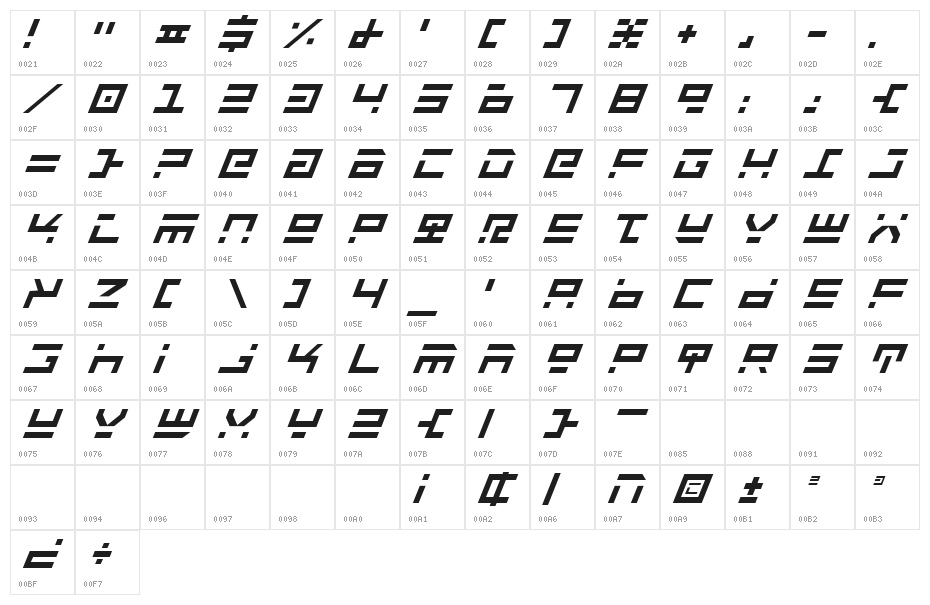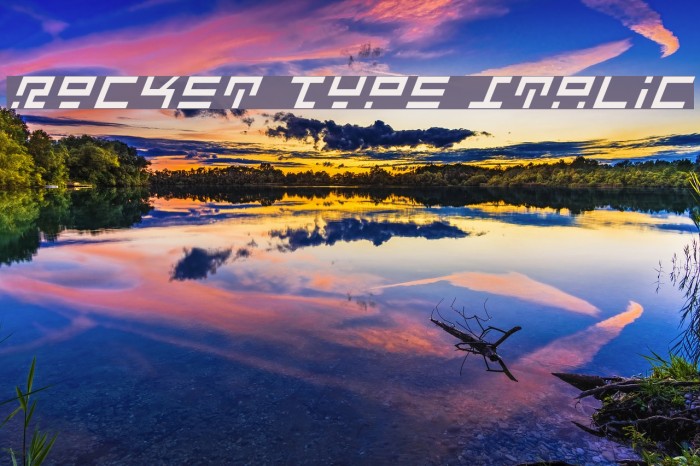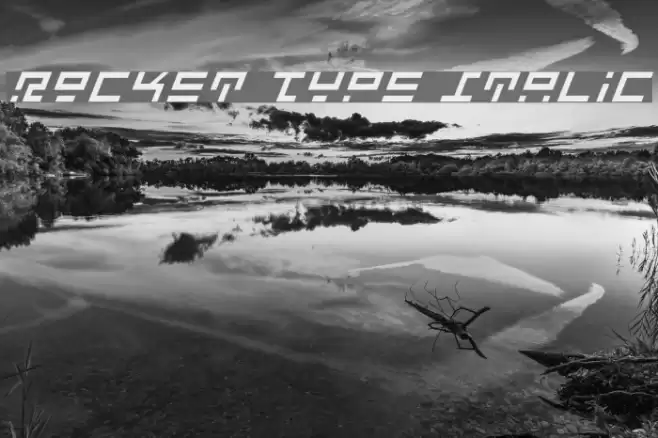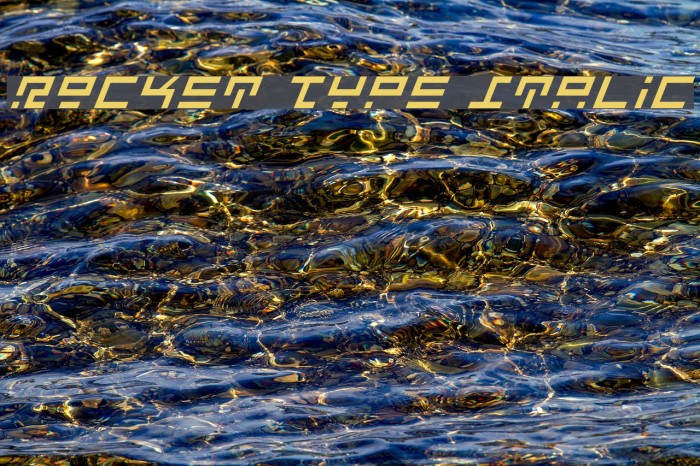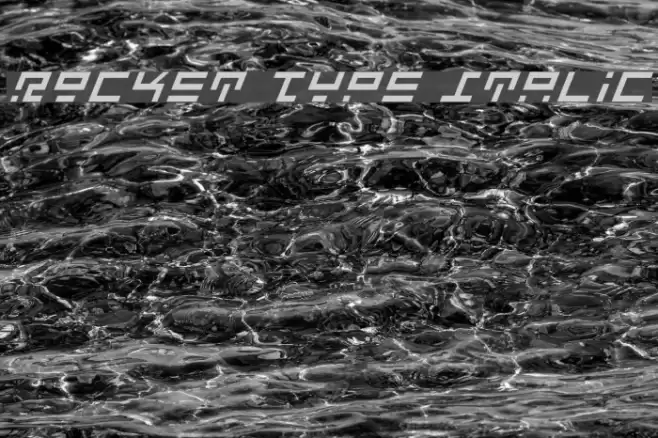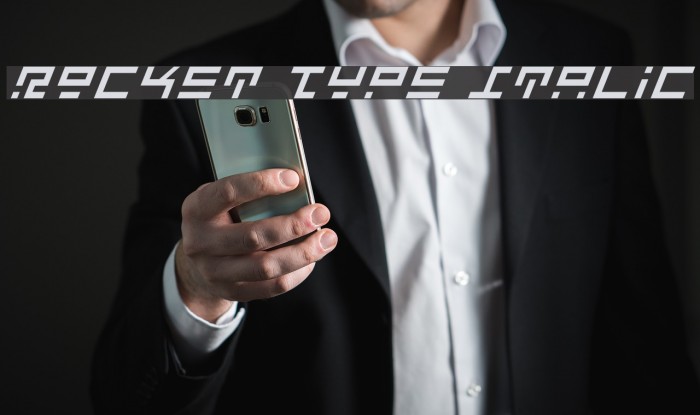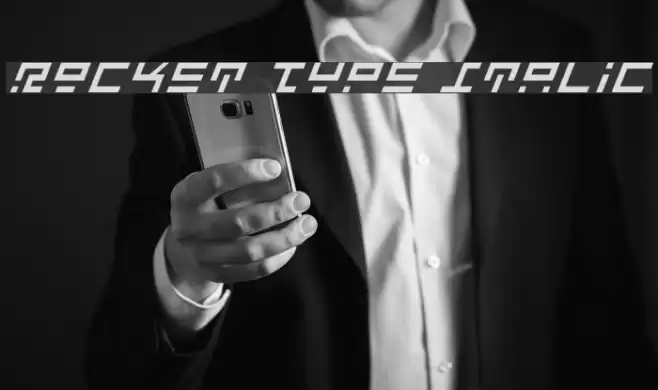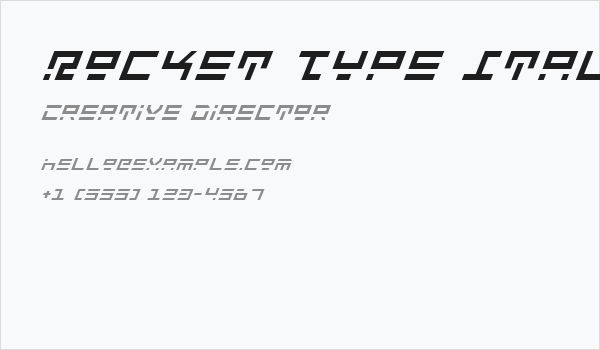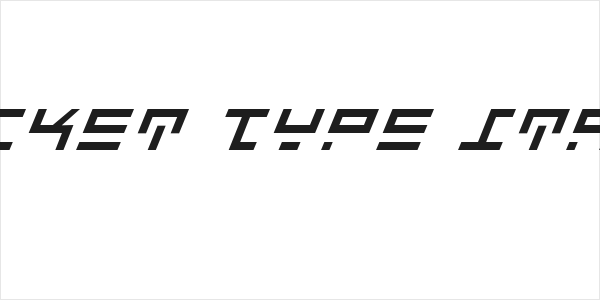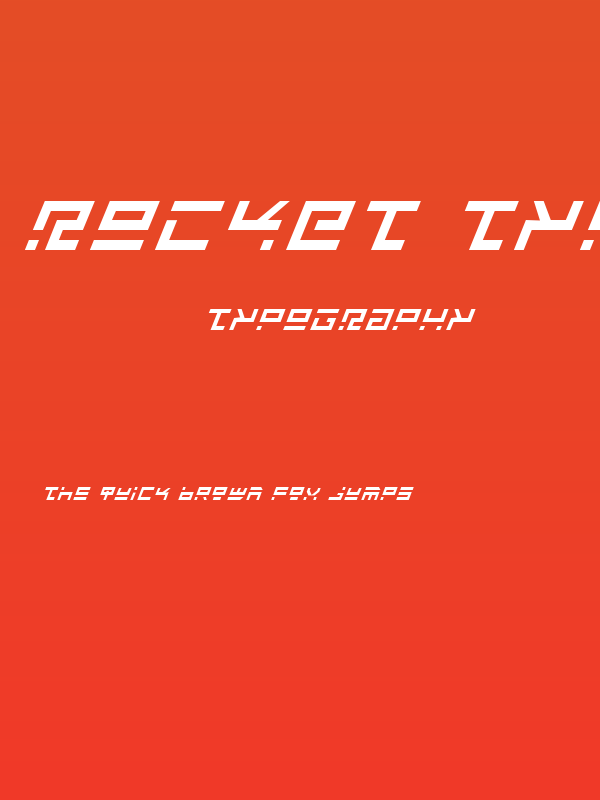
Rocket Type Italic Font
Rocket Type Italic Description
This font features a futuristic and angular design, characterized by its sharp edges and geometric shapes. The italic style adds a dynamic and forward-leaning appearance, enhancing its modern and tech-inspired aesthetic. The characters are distinct with a consistent slant, giving a sense of motion and speed. The uppercase and lowercase letters maintain a uniform style, while the numerals and special characters complement the overall design. This font is ideal for projects that require a cutting-edge and innovative look.
| Proposed Projects | Ideal for technology branding, sci-fi posters, video game titles, and modern digital interfaces. |